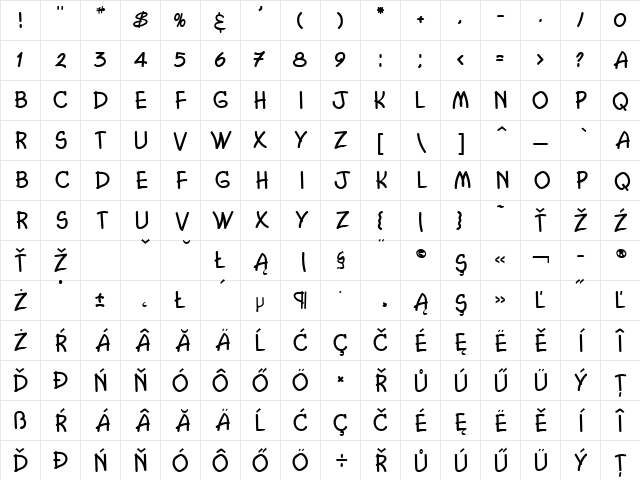
Cosmic Normal Free Font
Cosmic Normal
Cosmic Family
Cosmic is a composed and adaptable typeface that performs quietly and consistently across a wide range of design contexts.